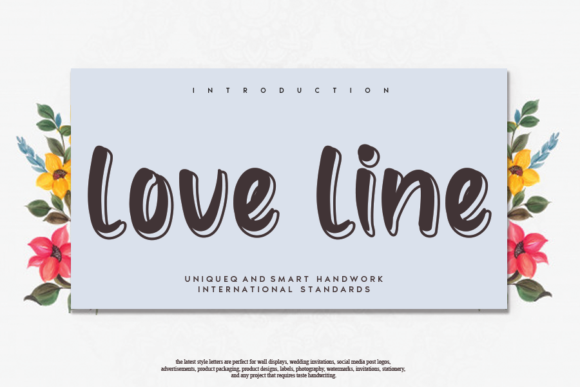
Introducing Love Line Font, an Enchanting Script Font to Elevate Your Creative Projects
Step into the realm of exquisite typography with Love Line Font, a captivating script font designed to ignite your creative spirit and breathe life into your digital designs. Crafted with meticulous attention to detail, this font is a masterpiece of flowing strokes, swashes, and delicate curves that exude an aura of warmth and elegance.
Unleash the boundless creative possibilities of Love Line Font and let your imagination soar. Its enchanting personality makes it the perfect choice for a wide array of design projects, from heartfelt wedding invitations and romantic branding to whimsical social media graphics and enchanting blog headers. Picture the delight of your readers as they're captivated by your words, adorned with this font's graceful charm.
Embark on a Typographic Journey of Love and Beauty
Love Line Font is more than just a collection of characters; it's an emotional journey that evokes feelings of love, joy, and heartfelt connection. Let your designs speak volumes with this font's innate ability to convey emotions and create a lasting impact on your audience.
Discover a Newfound Passion for Handwritten Beauty
With Love Line Font, the art of handwritten typography comes to life on your digital canvas. Each letter, meticulously crafted to reflect the natural flow of a human hand, dances across the screen with an effortless grace that captivates the eye. Let your designs radiate authenticity and personality as this font adds a touch of handwritten charm to your creative endeavors.
A Match Made in Typographic Heaven - Love Line Font and WordPress Blogs
Unleash the full potential of Love Line Font as the cornerstone of your WordPress blog. Its elegant and eye-catching design is the perfect complement to your written content, ensuring that your blog posts command attention and leave a lasting impression on your readers. Create captivating headlines, intriguing subheadings, and memorable quotes that resonate with your audience and keep them engaged until the very last word.